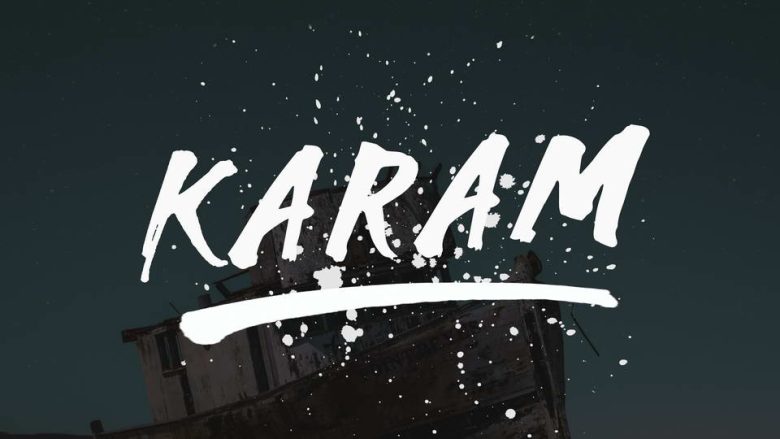
Karam Brush Font
Introducing Karam! It was a brush font perfect. Karam Brush Font designed and shared by Farularjianto. Karam is a beautiful brush script font with texture and adorable touch. It is perfect for branding, event invites, lovely Instagram posts. More importantly, please don’t hesitate to drop me a message if you have any issues or queries, and remember.